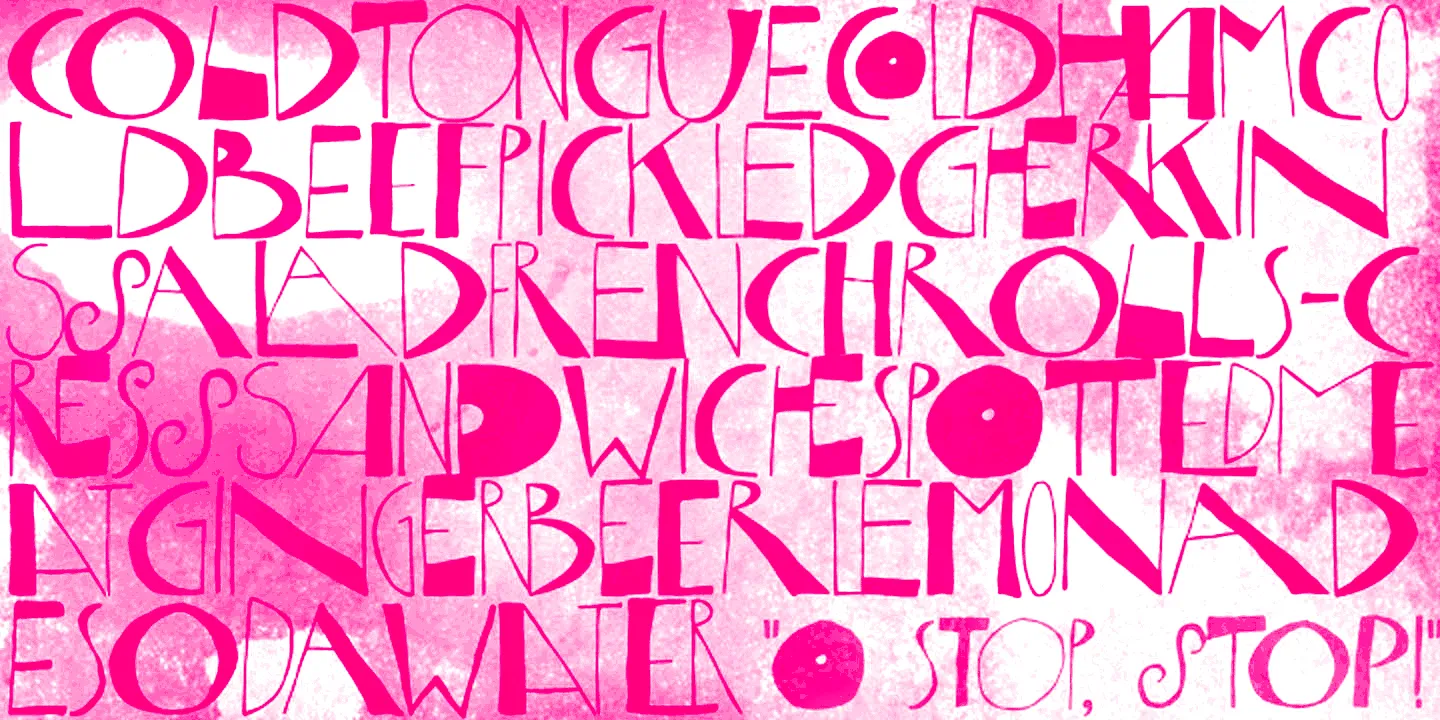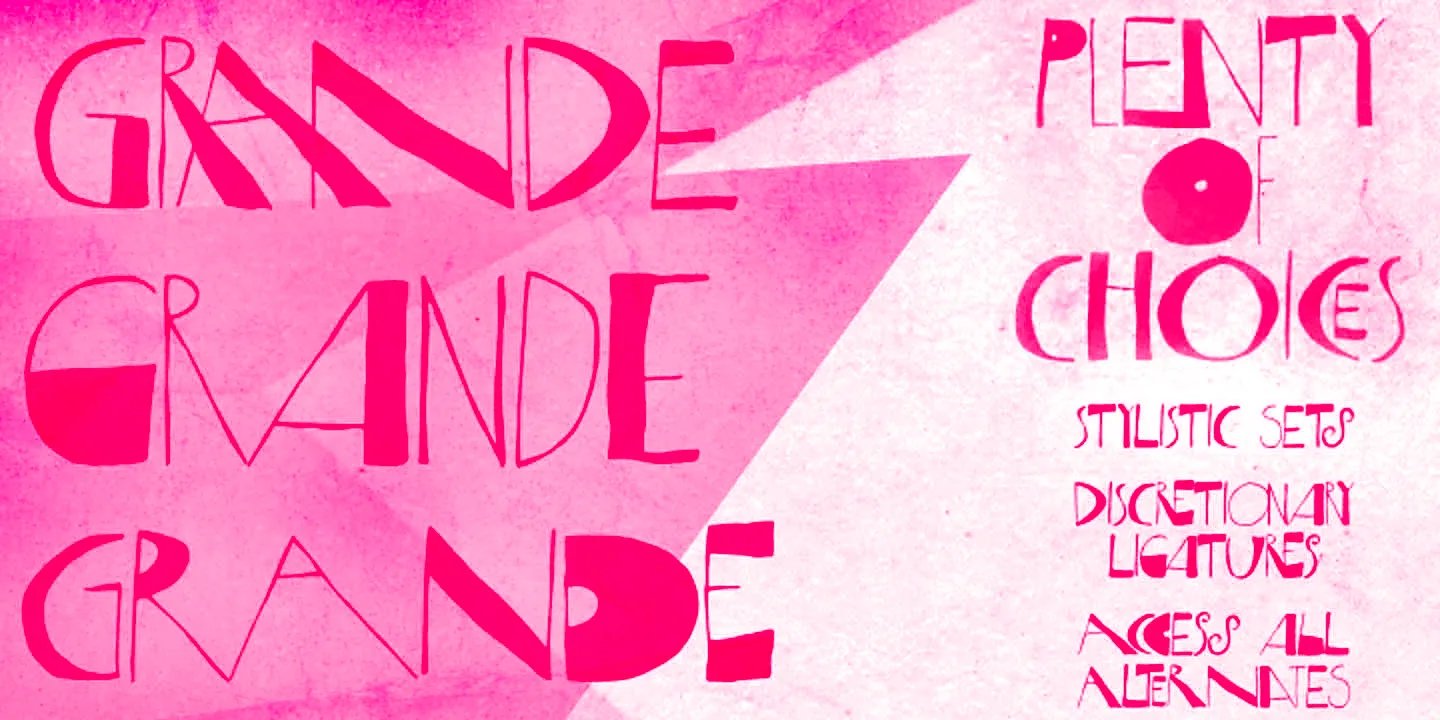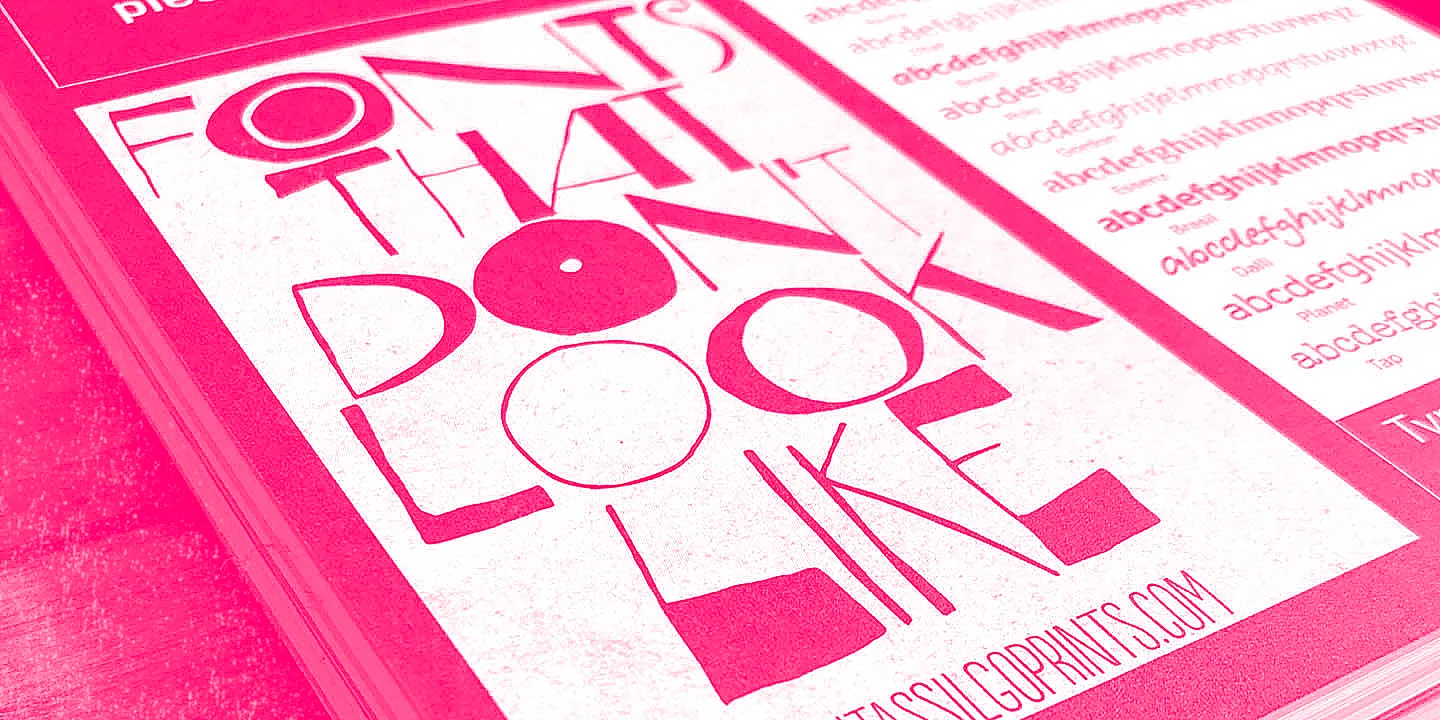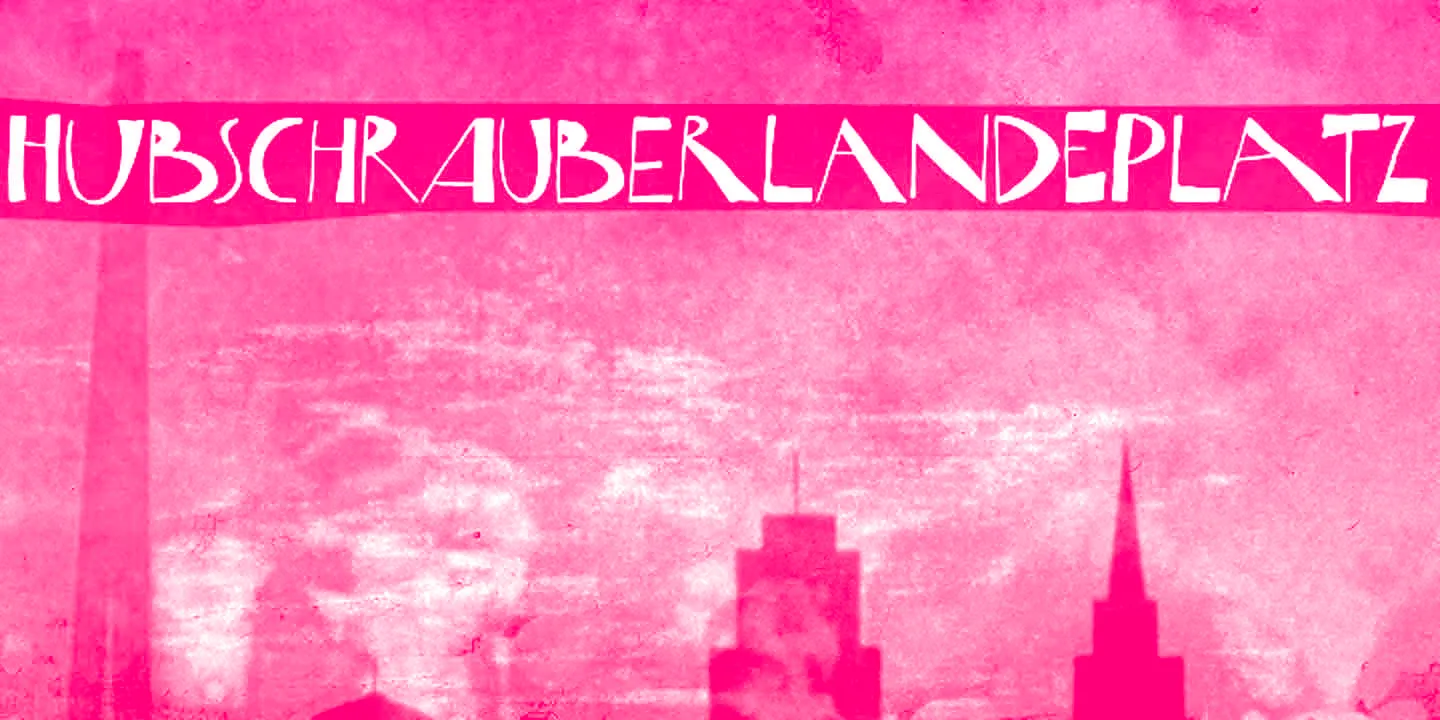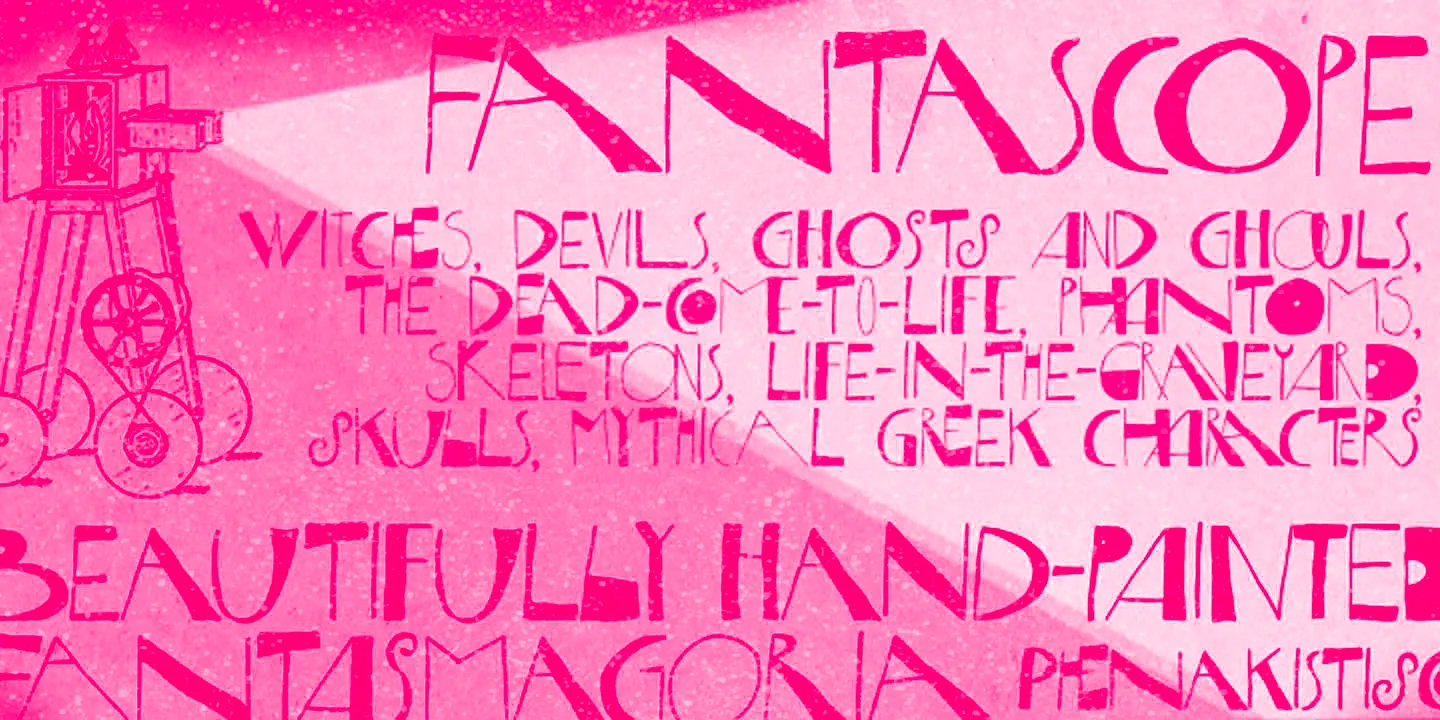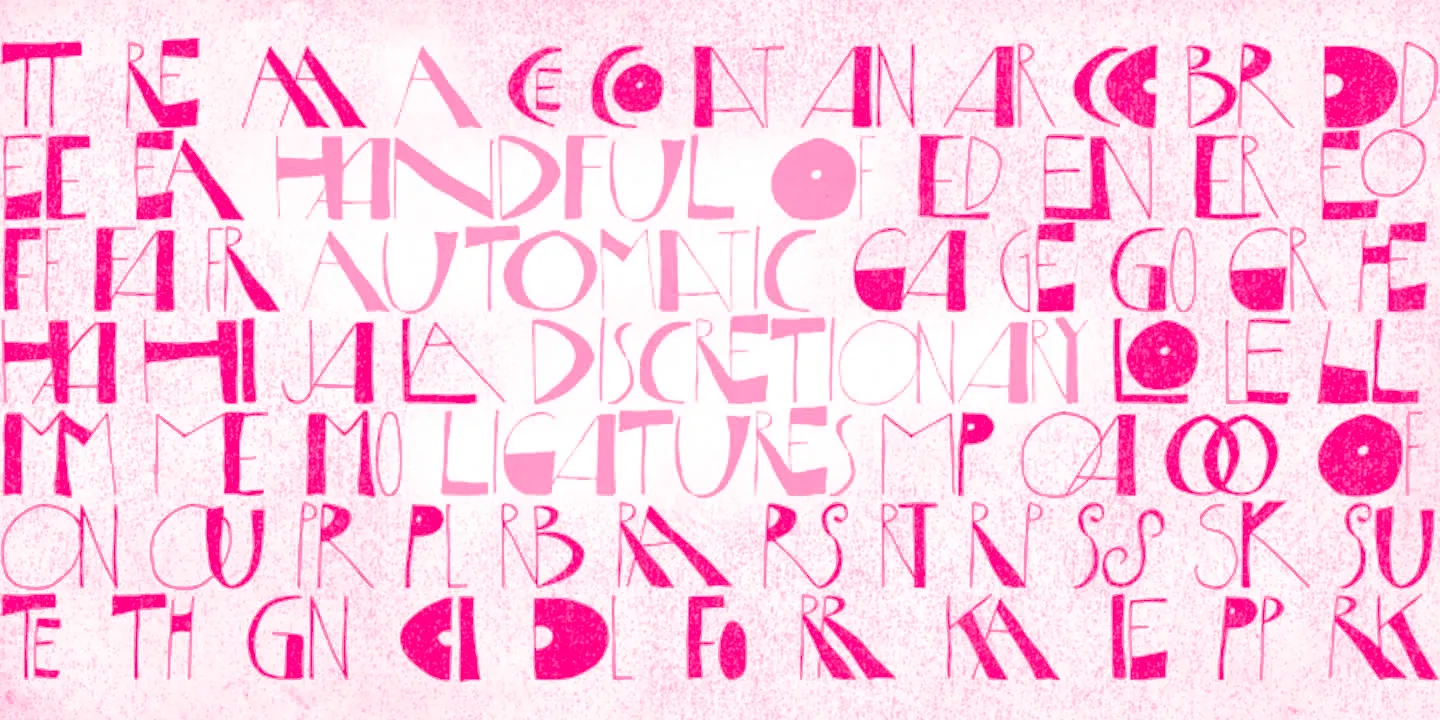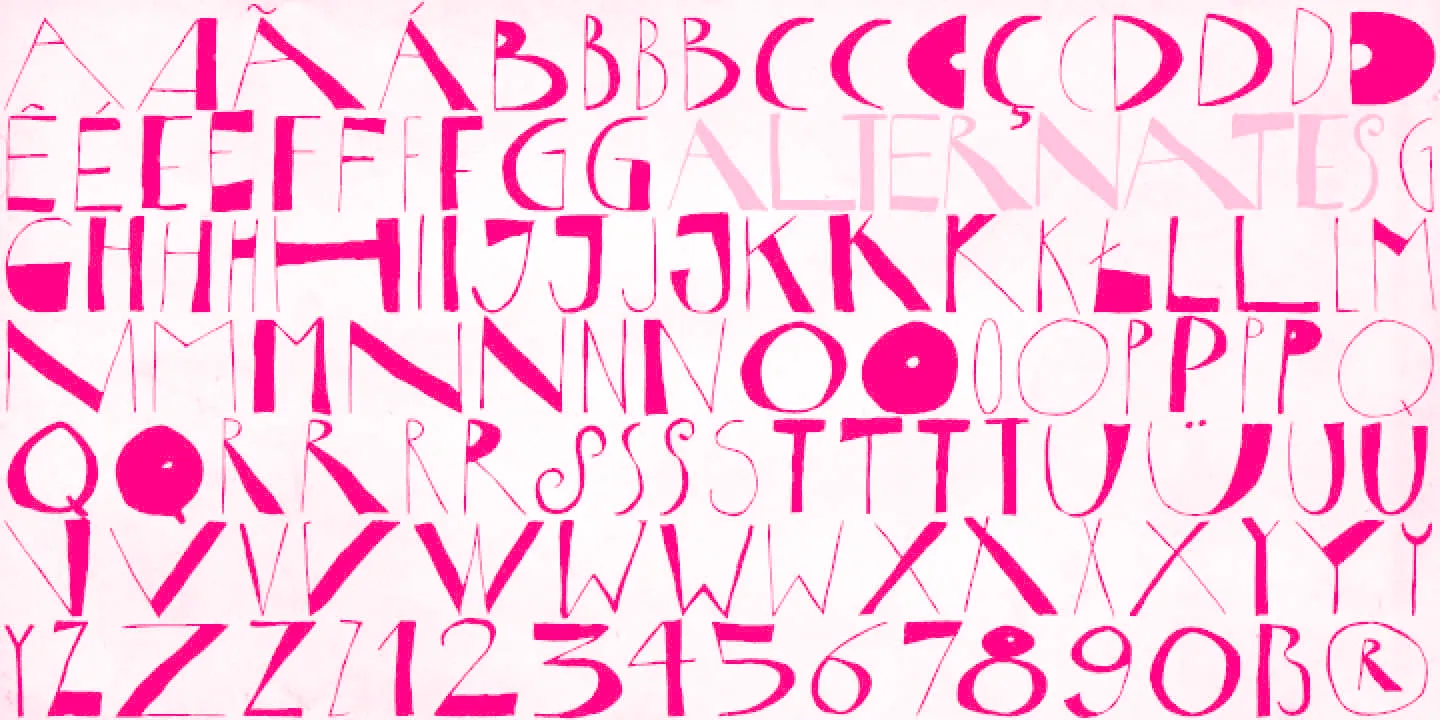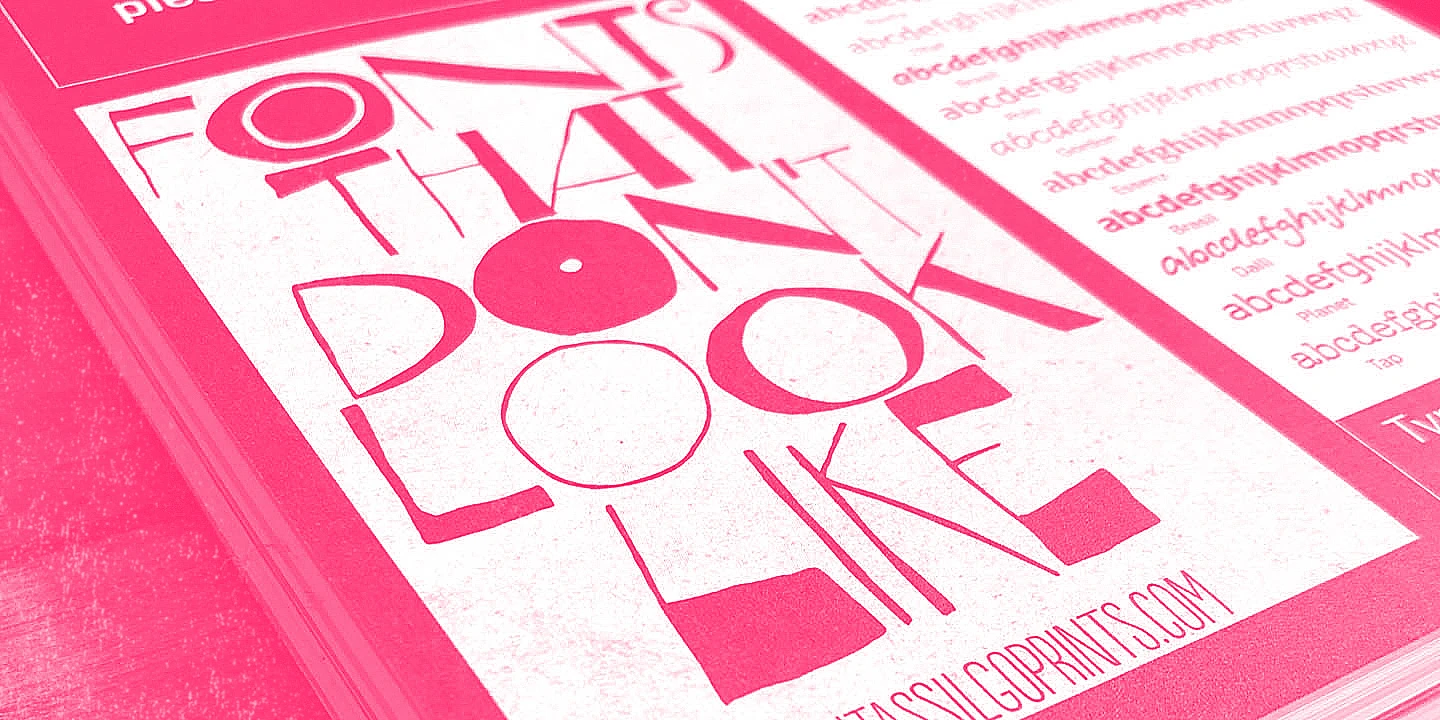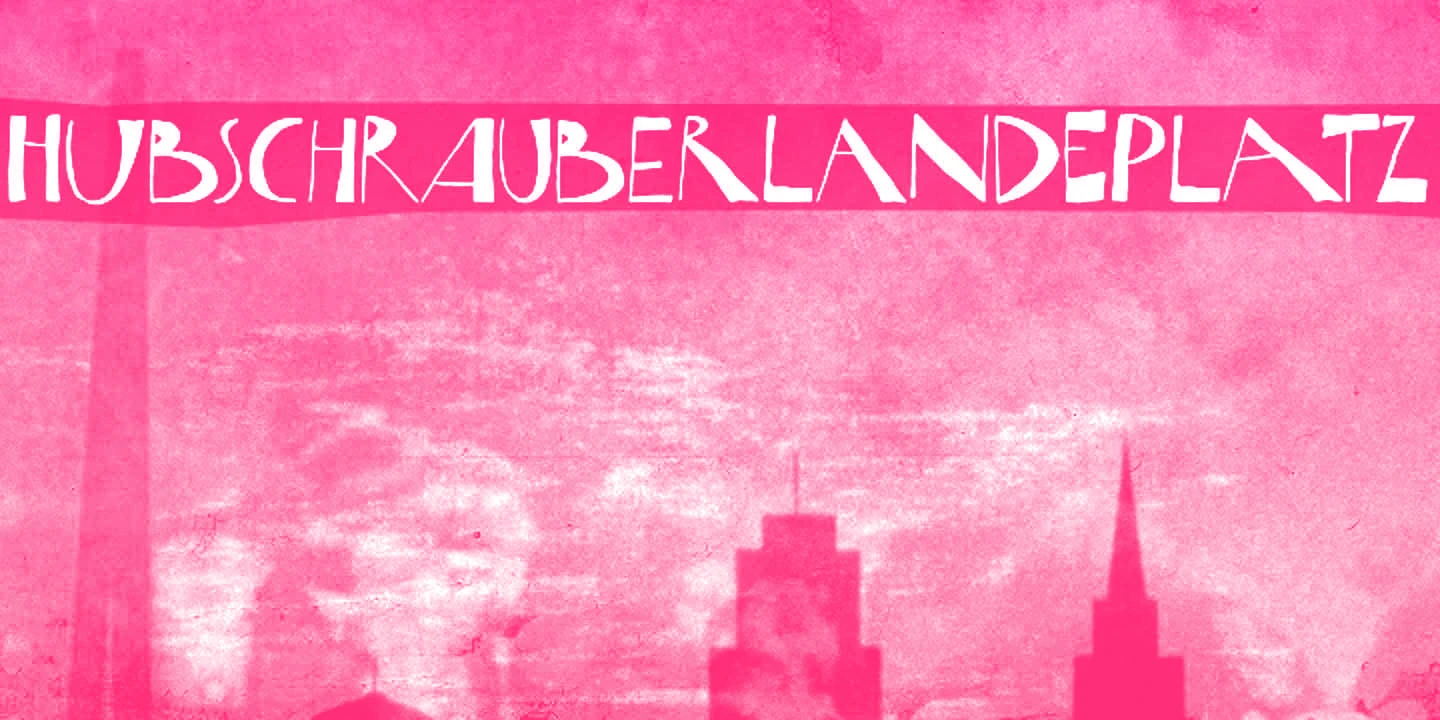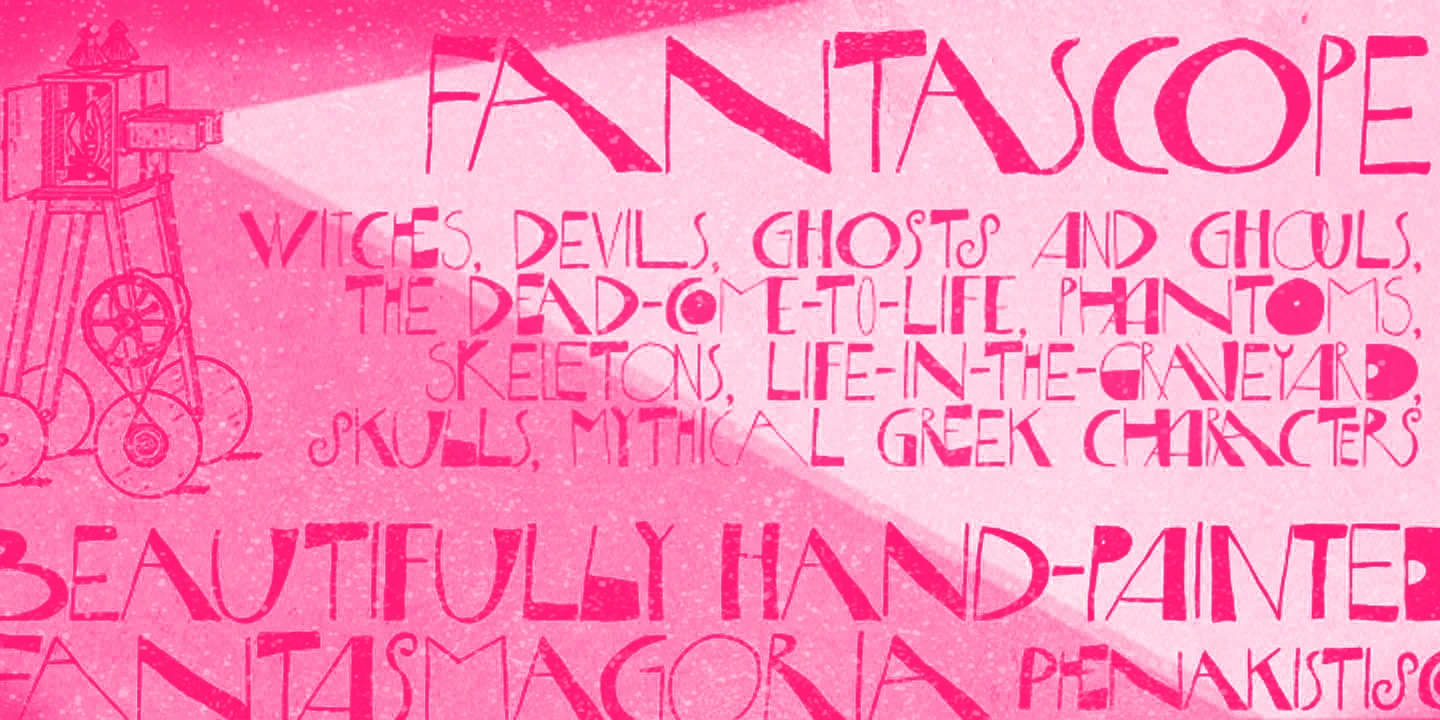
Horst Fonts
Horst
Horst is a highly original font inspired by the etchings of the extraordinary artist and printmaker Horst Janssen. It is ideal for adding an energizing blend of eccentricity to funky headlines, creative branding, video animations, and film titles. But be warned: this one is quite addictive!
- Discretionary Ligatures
- Stylistic Sets